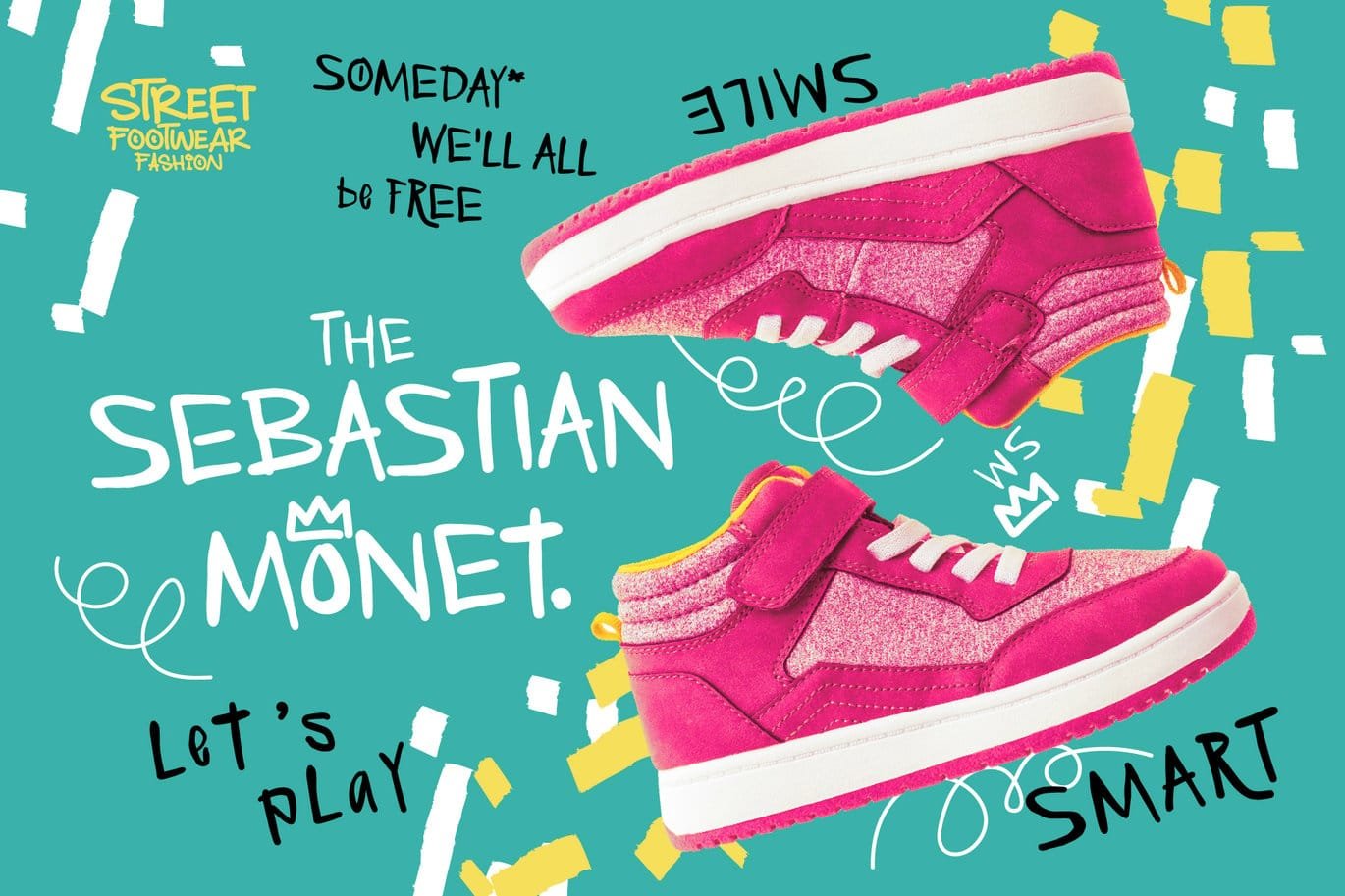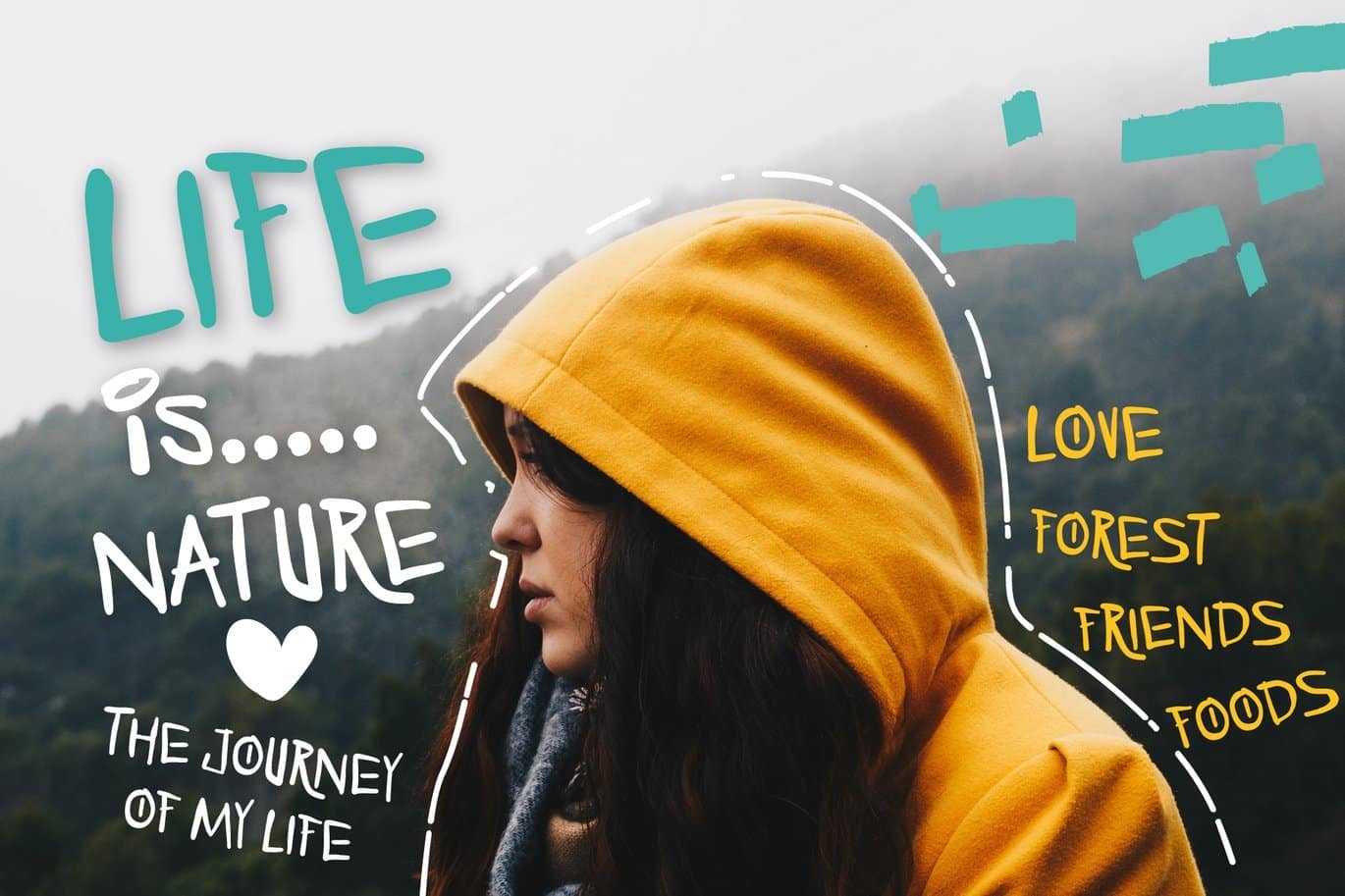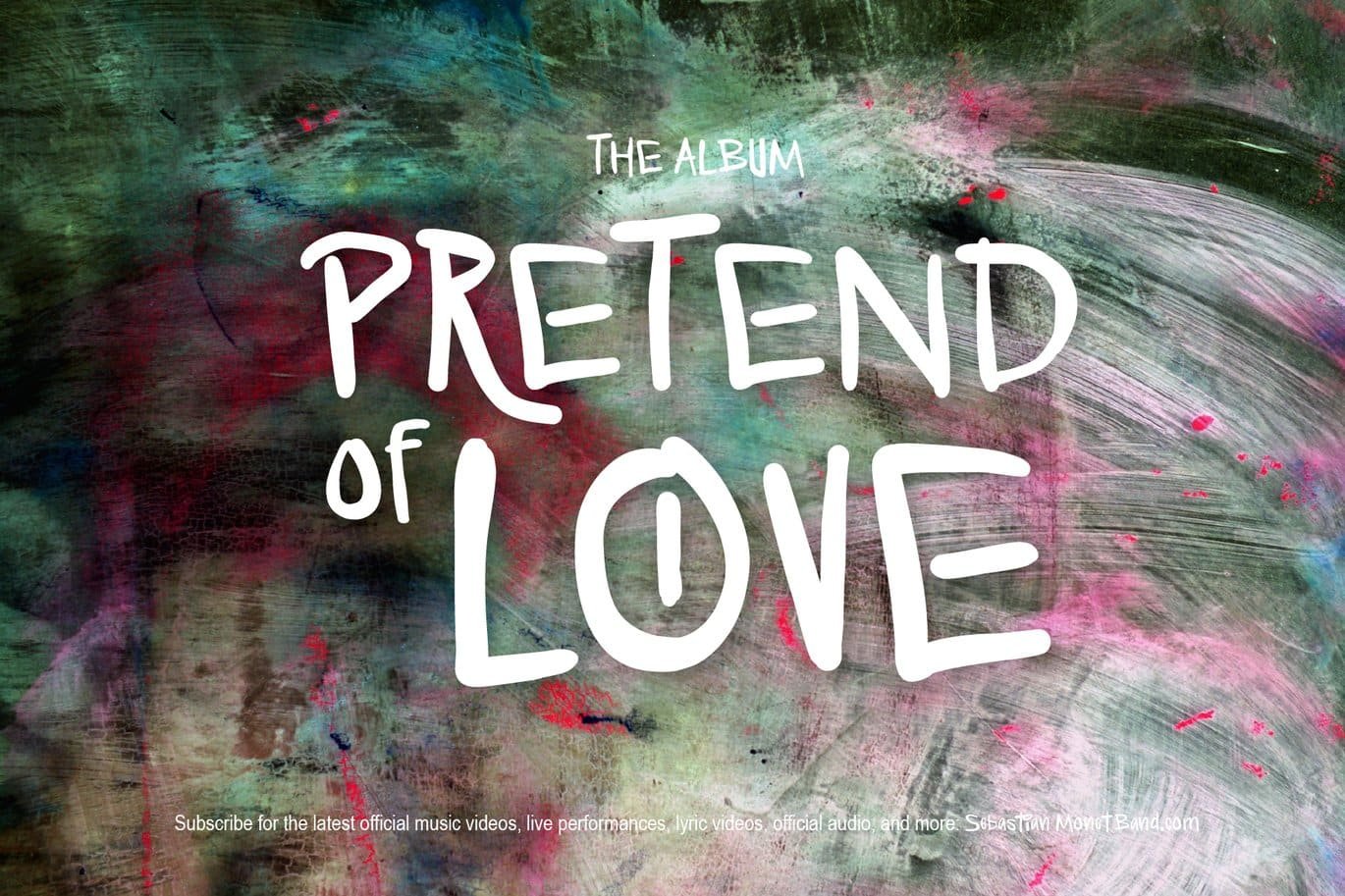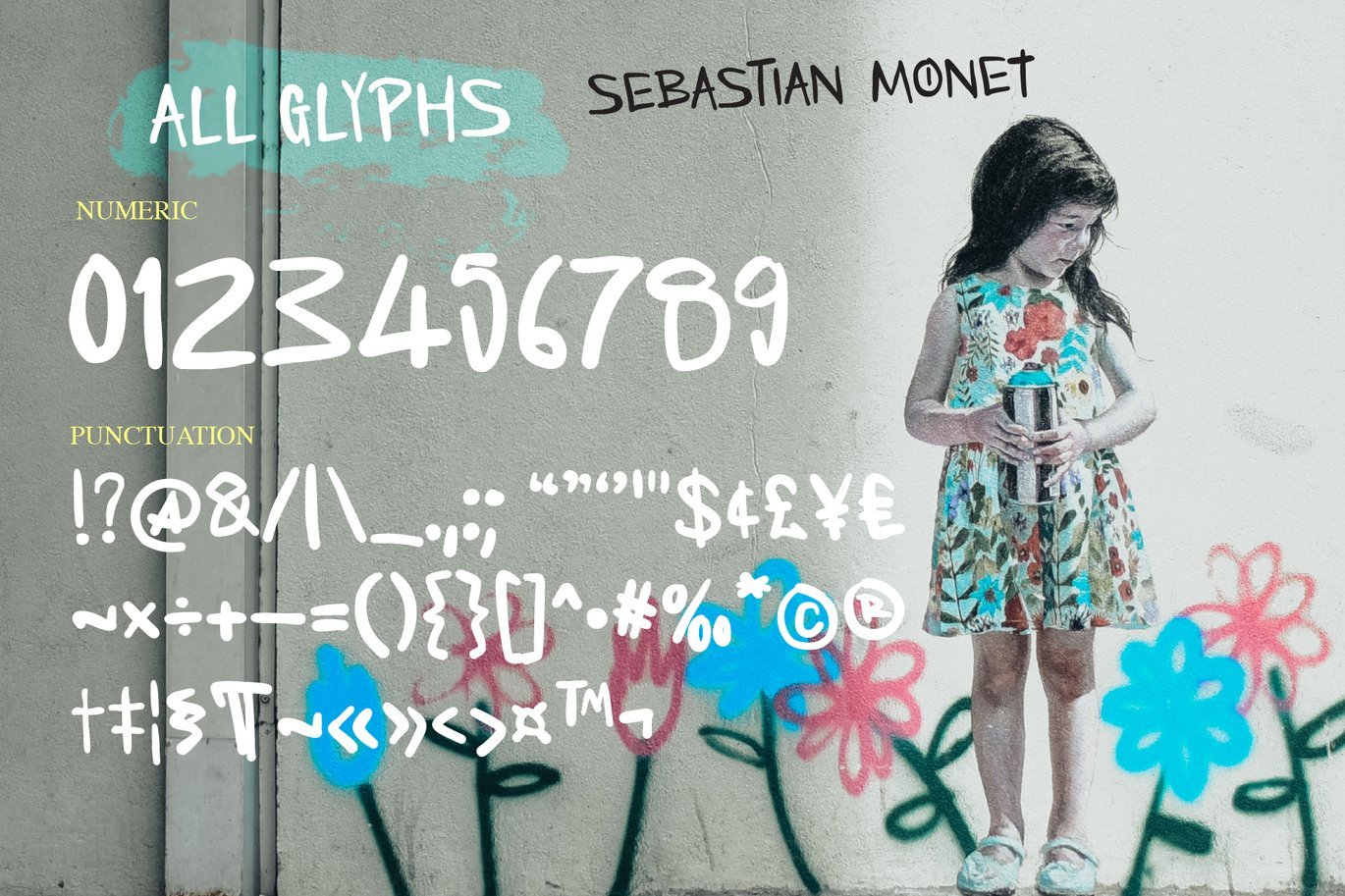
Sebastian Monet Font
Sebastian Monet is an awesome graffiti-styled display font that has a cool street art vibe. This font is suitable for designs such as logos, advertisements, and more.